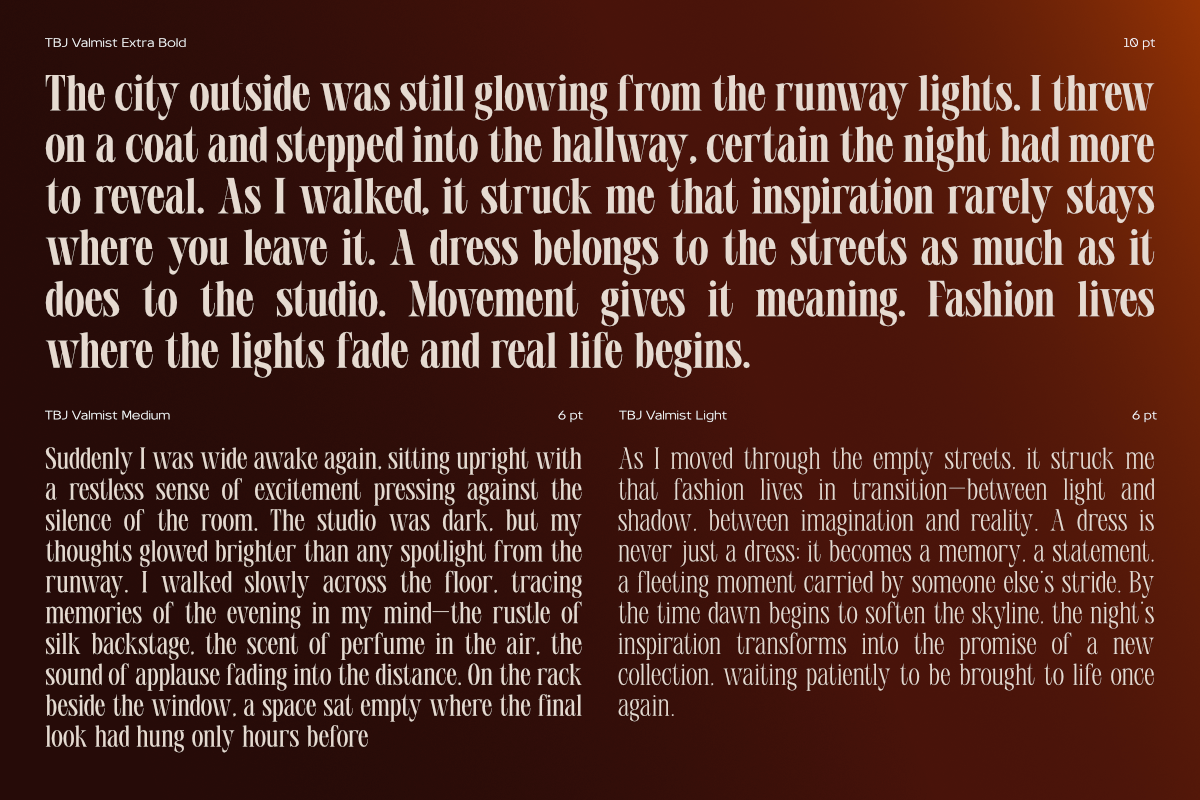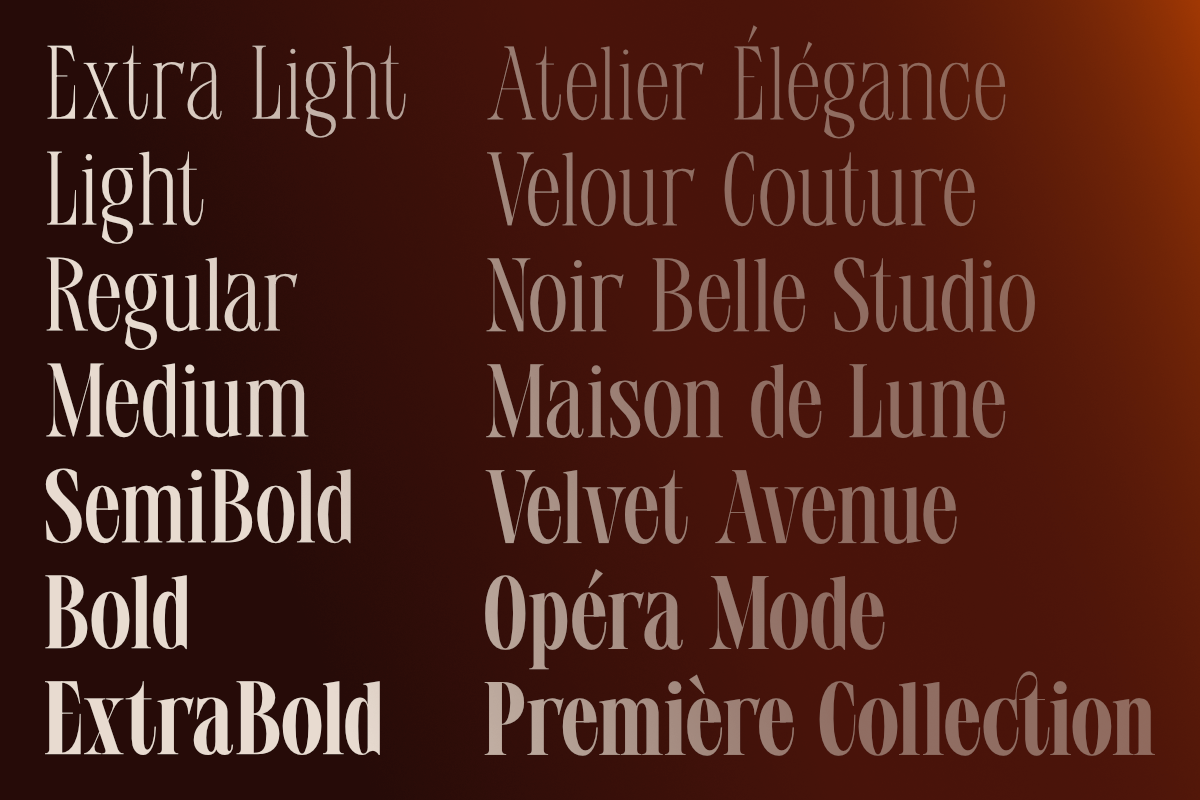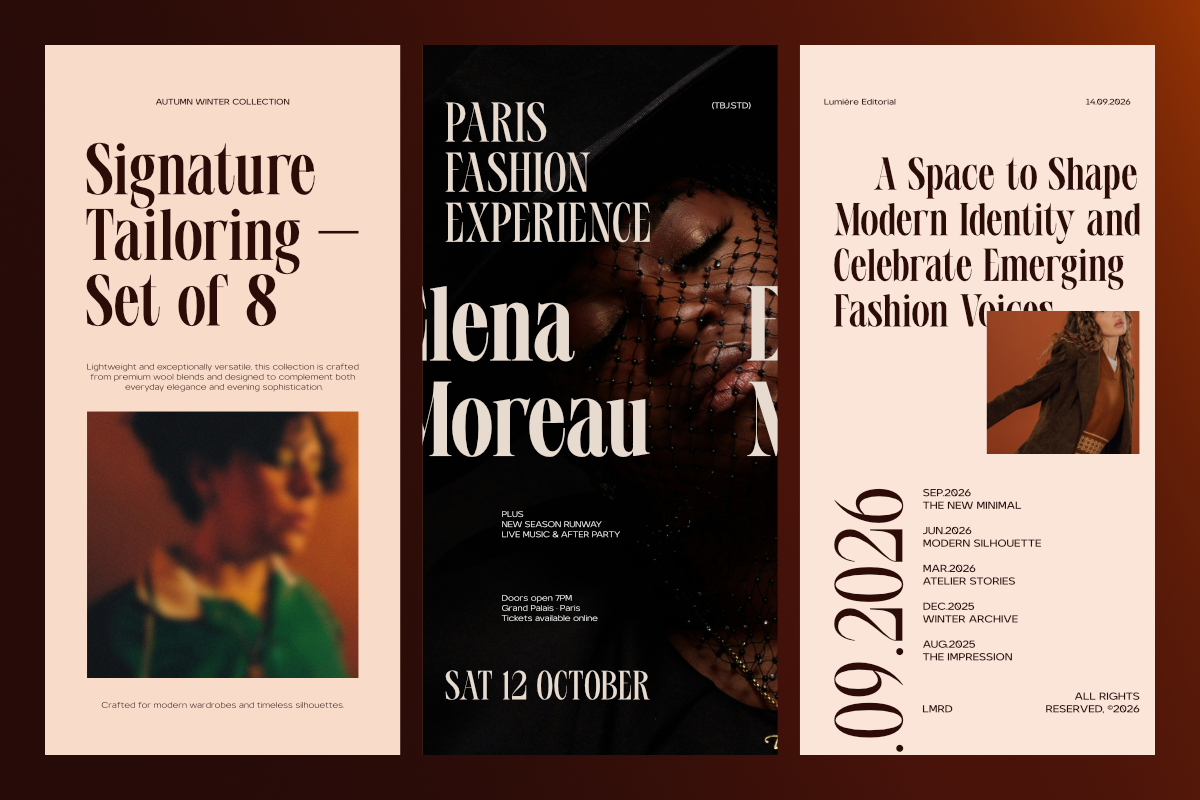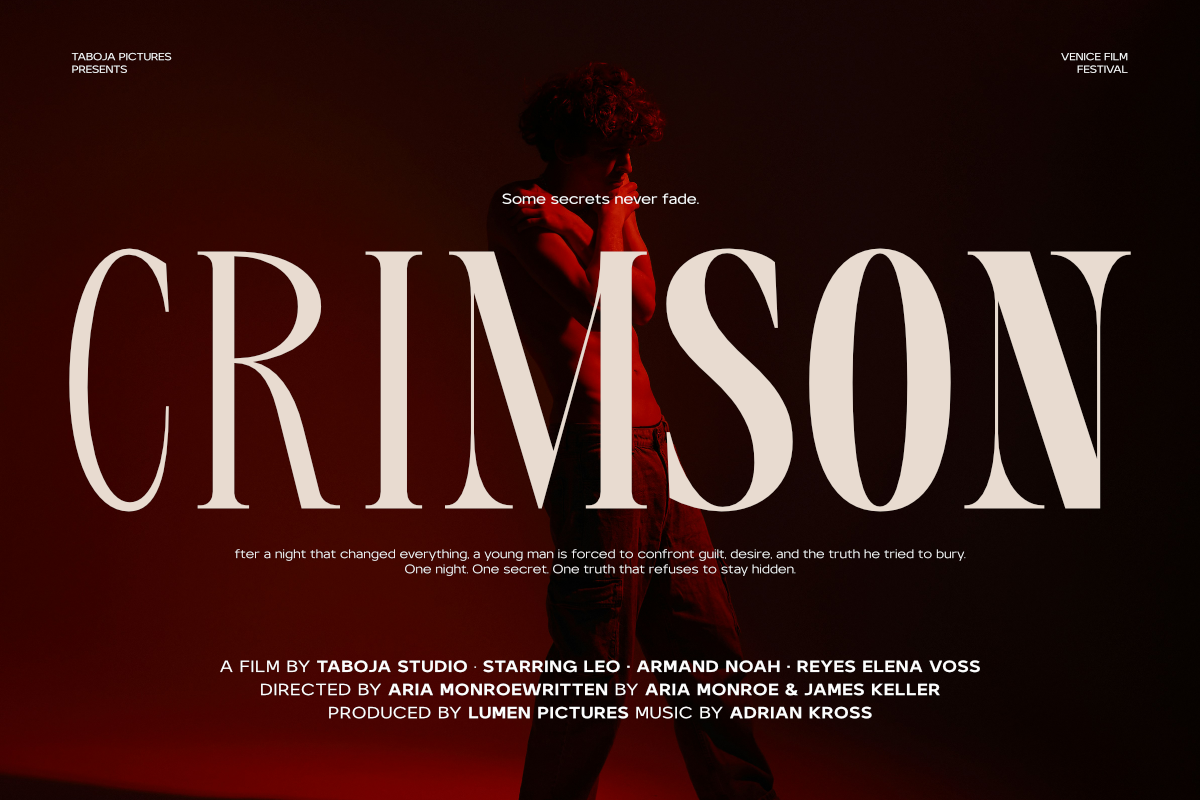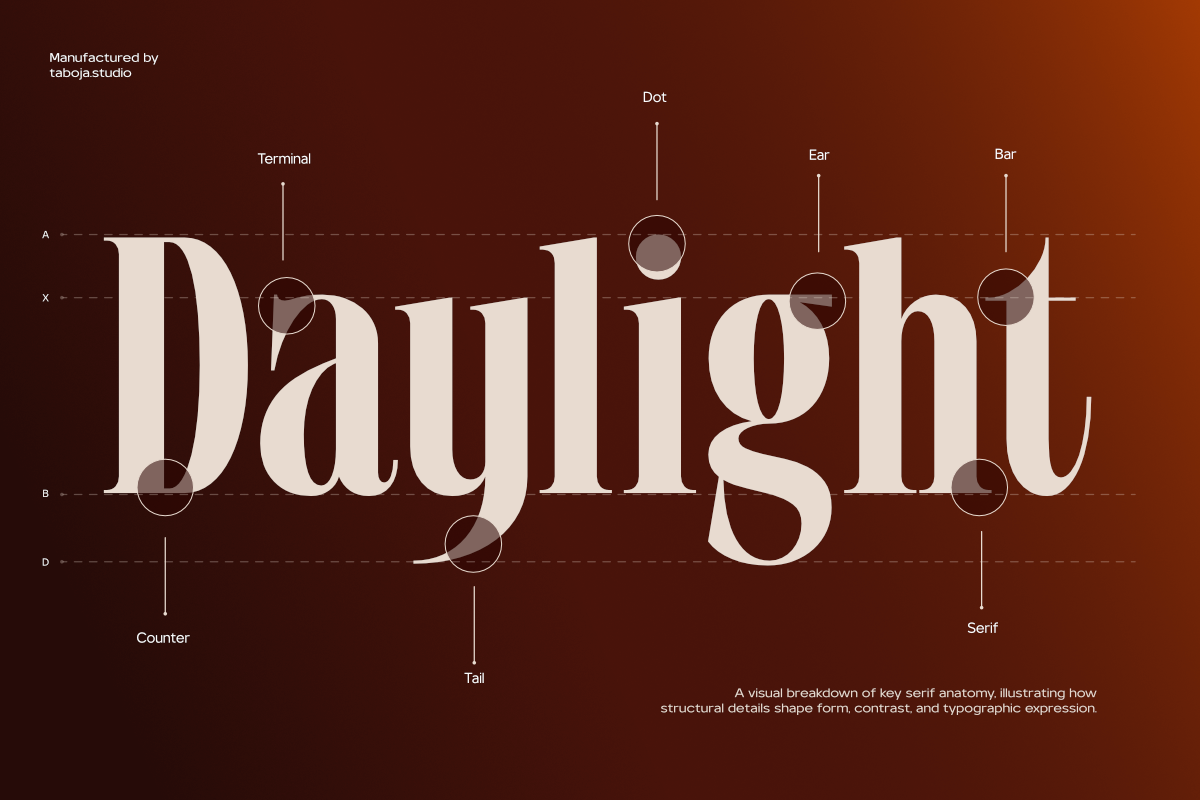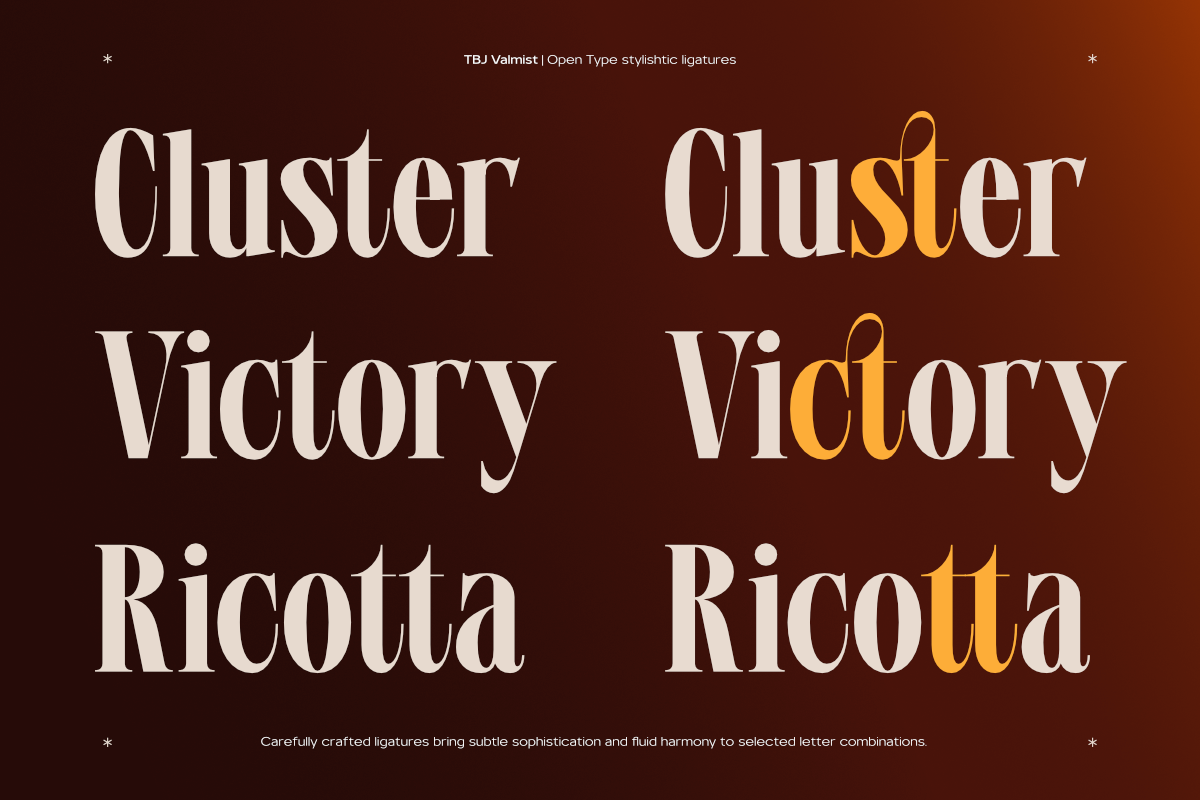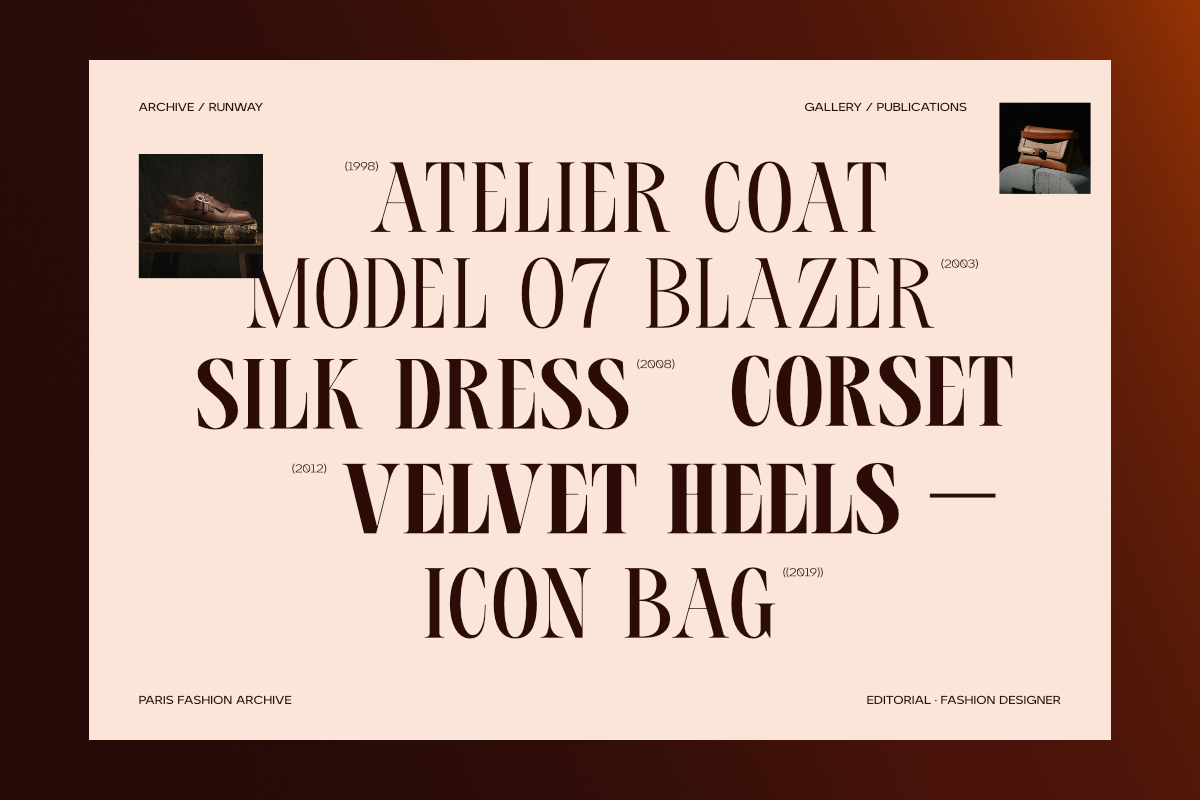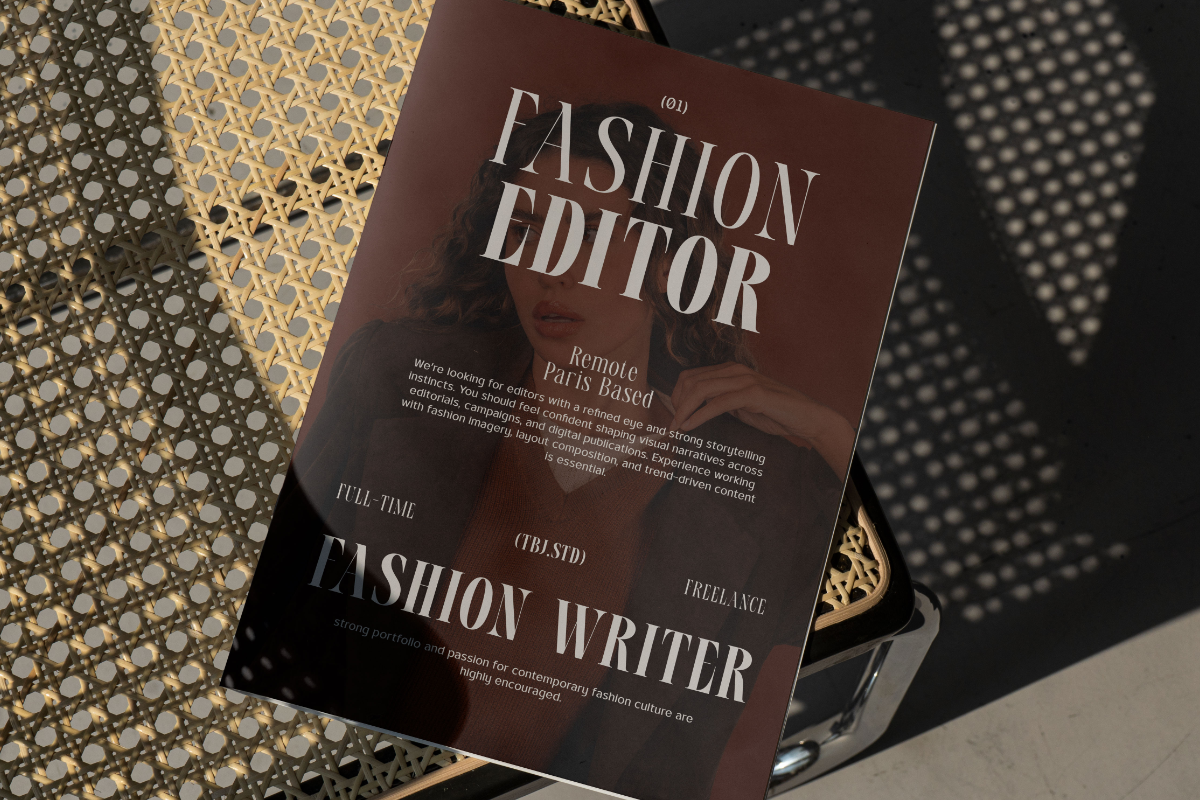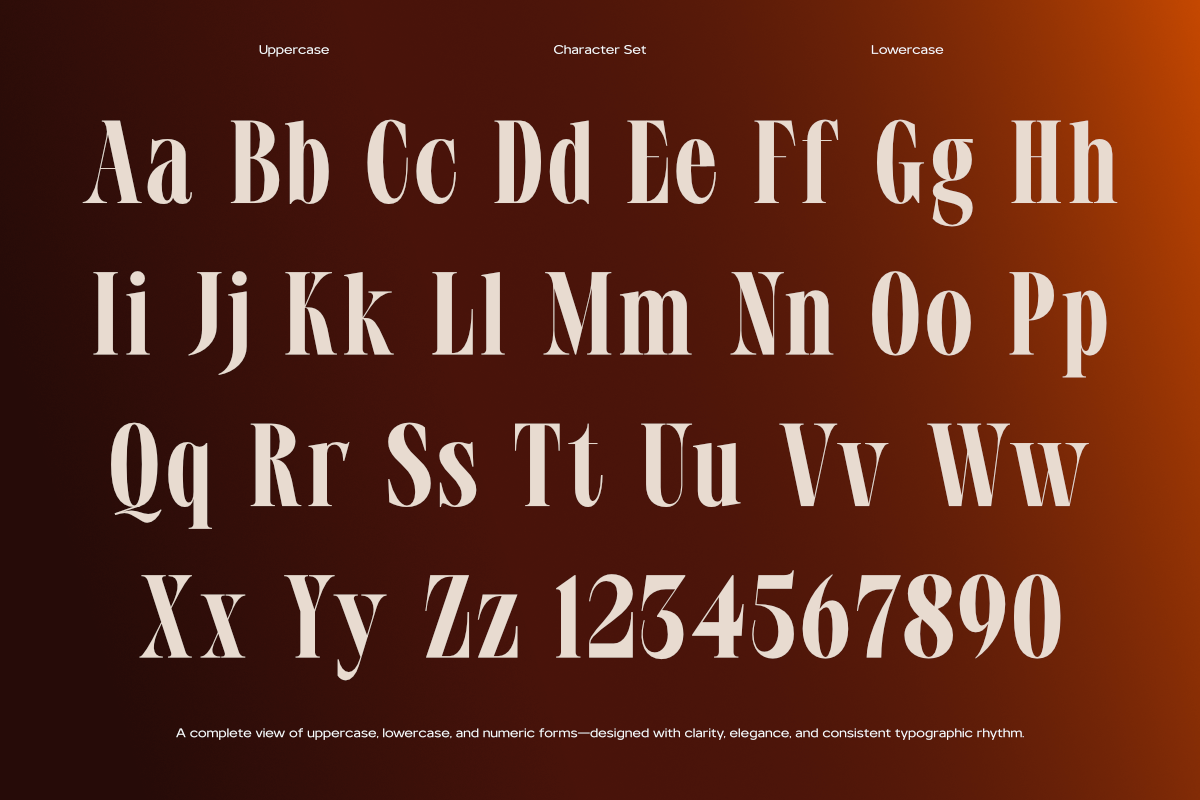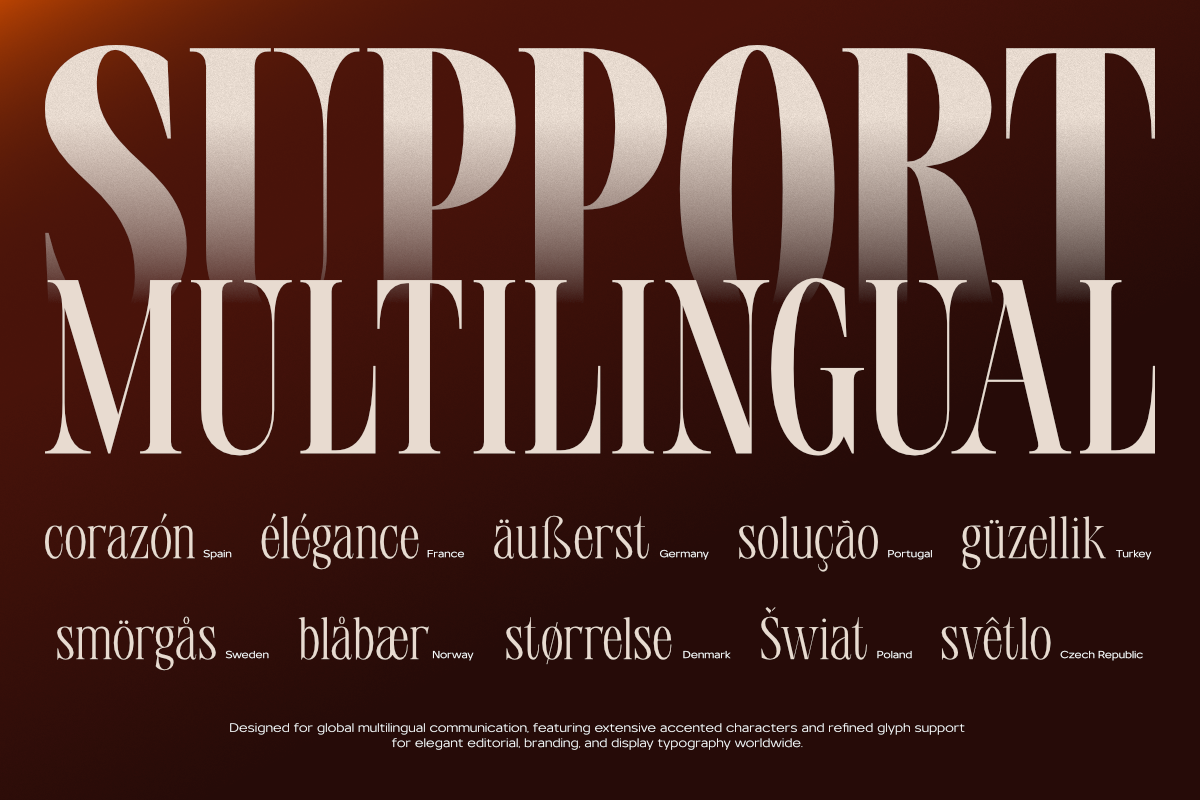
TBJ Valmist Elegant Modern Serif
TBJ Valmist is an elegant modern serif typeface crafted to express sophistication, clarity, and timeless visual presence. Designed with refined proportions, high-contrast strokes, and graceful serif details, it delivers a luxurious typographic tone suitable for premium editorial and branding environments.
Built as a versatile type family with multiple weights from Extra Light to Extra Bold, TBJ Valmist provides a balanced typographic system that transitions smoothly from delicate editorial layouts to strong headline compositions. Each weight maintains consistent structure while enhancing visual contrast, allowing designers to build layered typography with elegance and precision.
Its tall and confident letterforms create a strong vertical rhythm while preserving refined spacing and readability. This makes TBJ Valmist ideal for luxury branding, fashion magazines, high-end packaging, editorial layouts, advertising campaigns, poster design, and sophisticated logo identities.
Combining classic serif heritage with contemporary refinement, TBJ Valmist brings a sense of prestige and modern clarity to both print and digital design. Whether used for bold magazine headlines or refined brand storytelling, the typeface delivers a distinctive and memorable typographic voice.
Carefully designed for designers who value elegance, structure, and expressive typography, TBJ Valmist stands as a refined serif family built for modern visual communication.